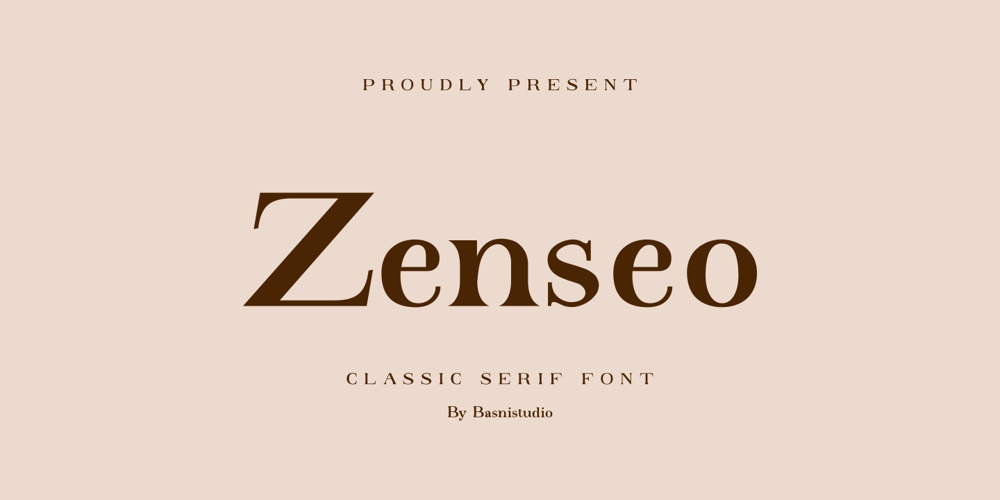
Zenseo Font Family was designed by Bery Arisandi and published by Basnistudio. Zenseo contains 1 styles and family package options. Introducing ZENSEO Clasic Serif FontZENSEO is an Clasic serif font that exudes unparalleled luxury. Meticulously crafted, each letter radiates captivating sophistication, making it ideal for design projects that prioritize a luxurious and exclusive aesthetic.ZENSEO delivers a strong and refined impression, perfect for headlines, titles, or other design elements requiring a bold emphasis.If you have any questions please don’t hesitate to contact me. follow my Instagram: @basni.std And check our Site www.Basnistudio.comThank You Very Much